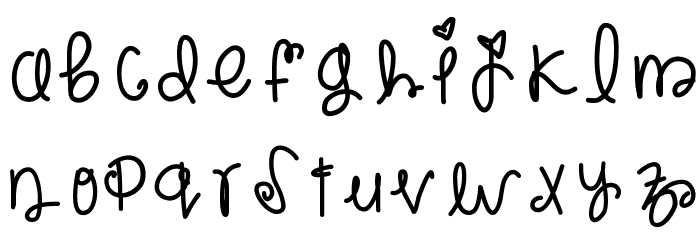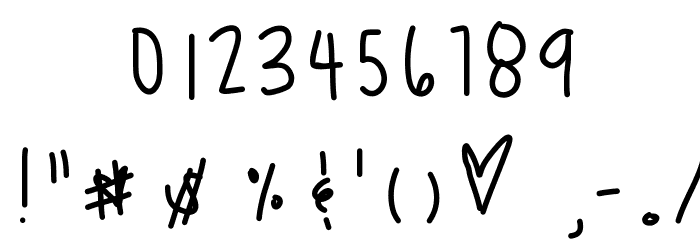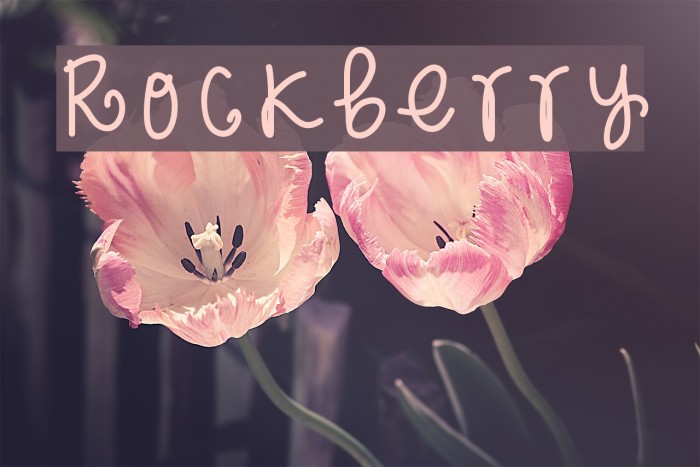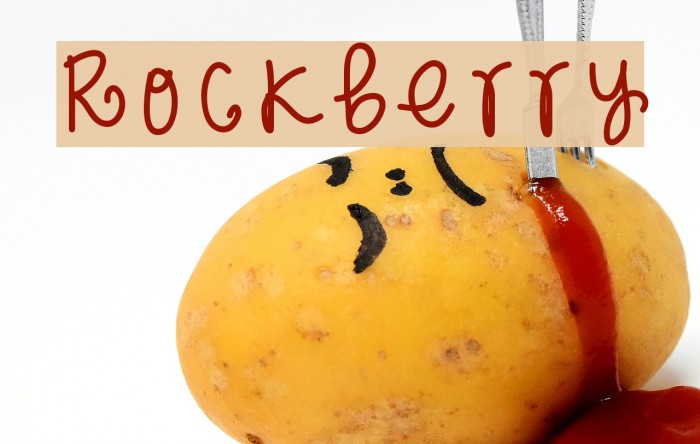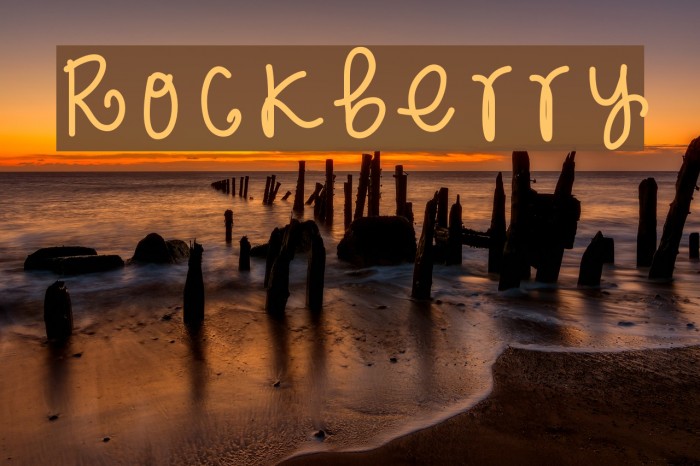
Rockberry Font
This font is a playful and whimsical handwritten style, characterized by its flowing, cursive-like letters that incorporate charming decorative elements such as hearts and loops. The uppercase and lowercase letters maintain a consistent style, with each character exhibiting a unique flair that adds to the overall playful aesthetic. The numbers and special characters follow the same design principles, ensuring a cohesive look across all glyphs. The font's informal and friendly appearance makes it suitable for projects that aim to convey warmth and creativity.
A playful handwritten font with decorative elements and a whimsical style.